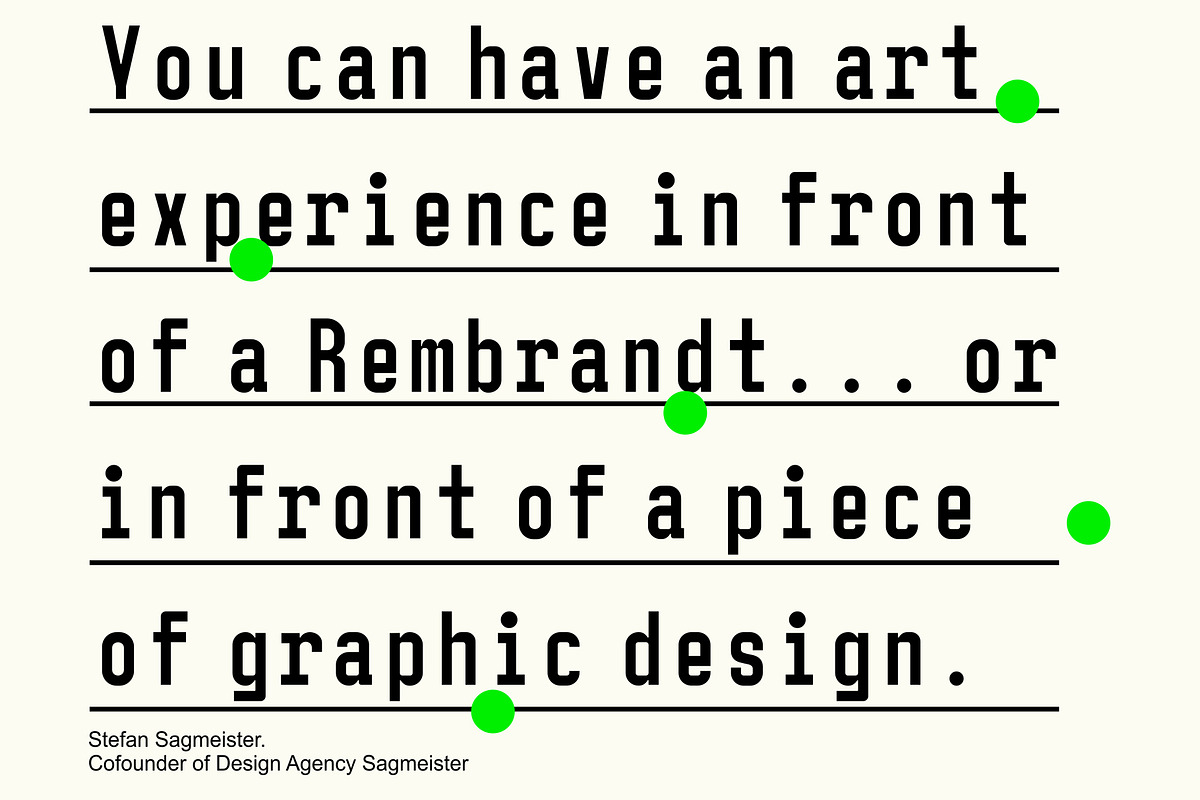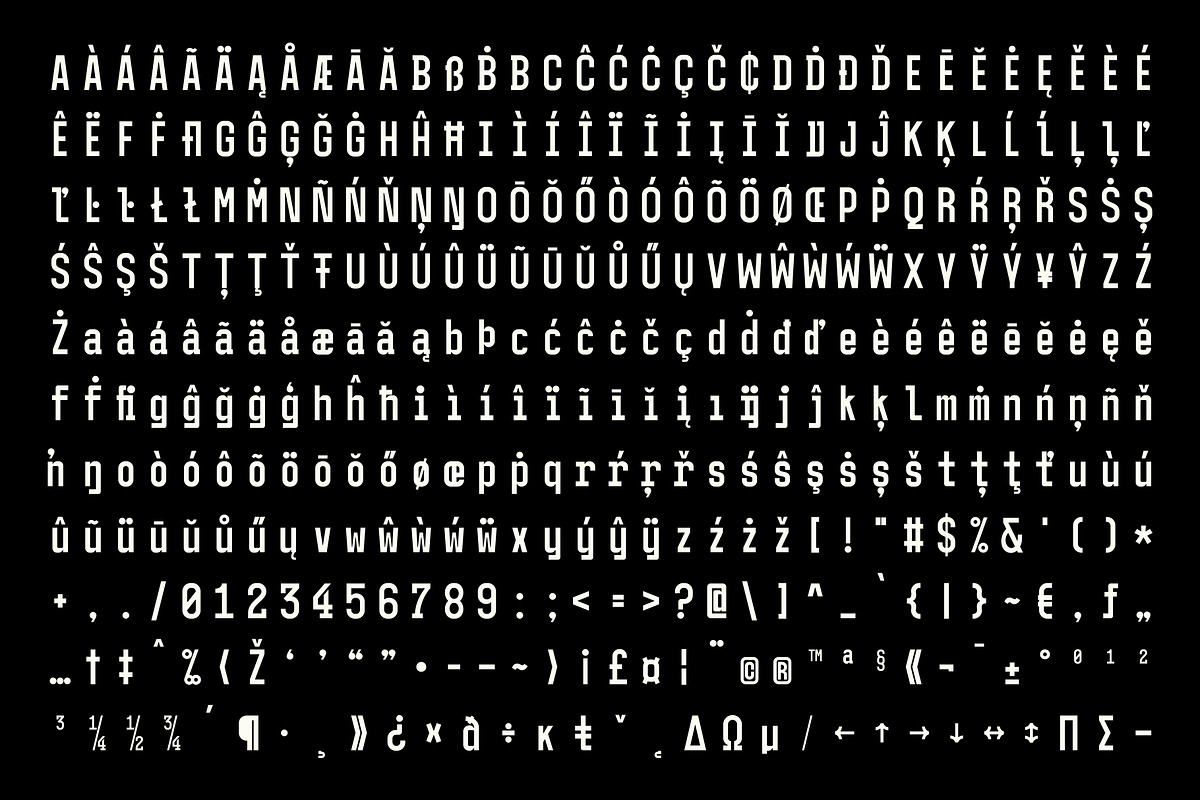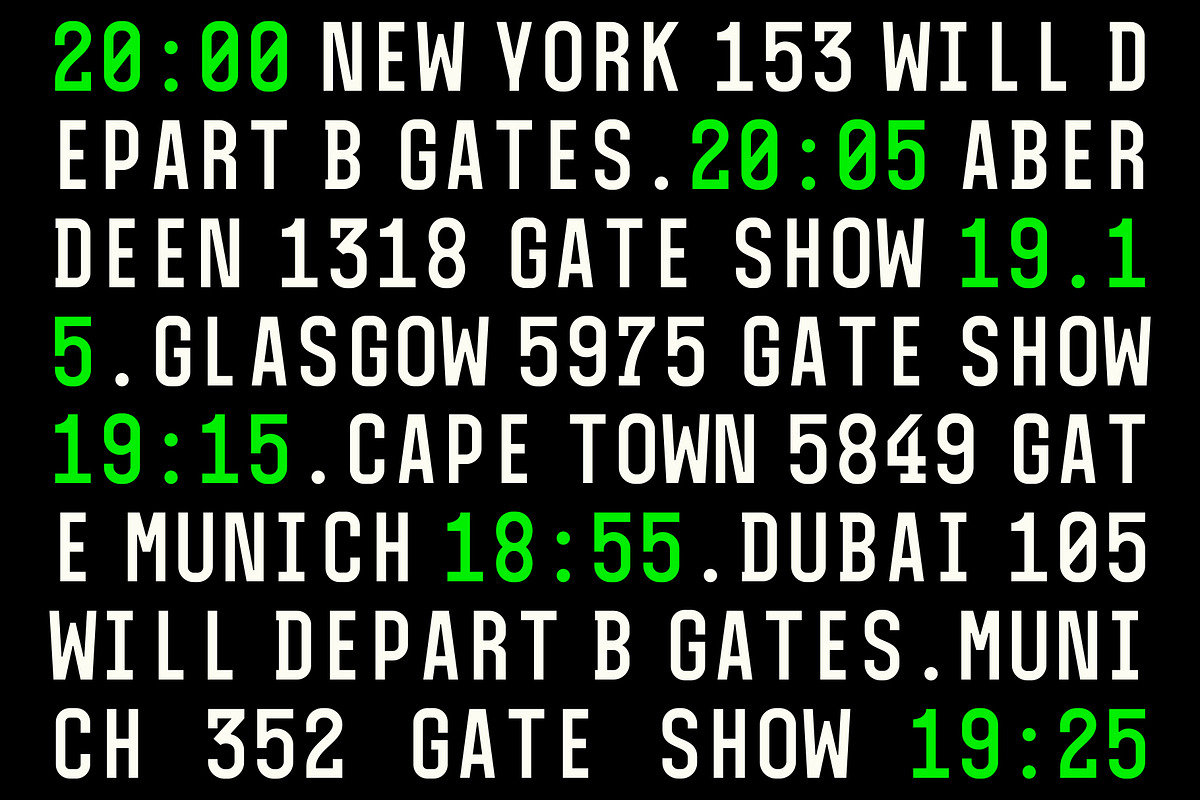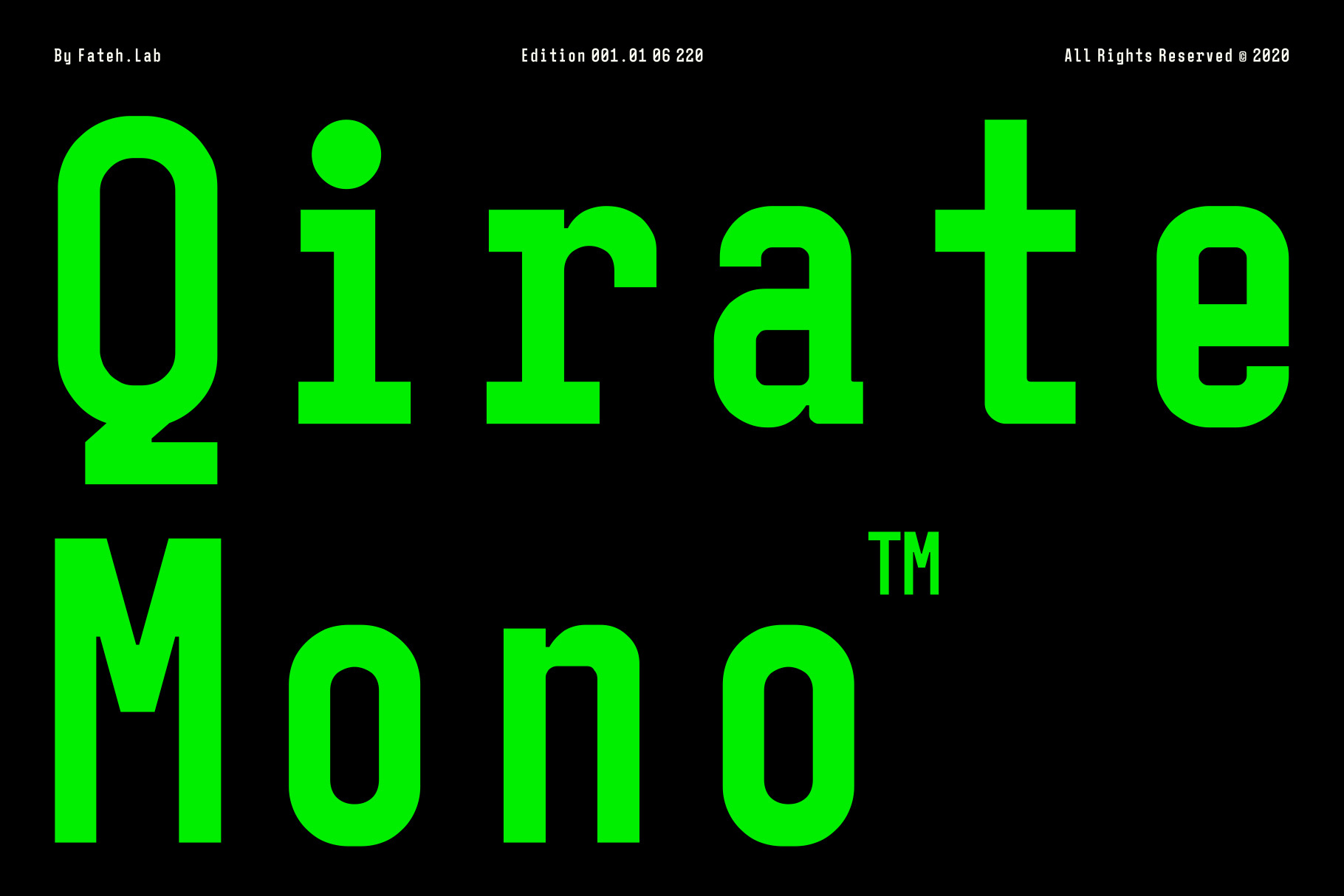
Qirate Mono | A Monospaced Font
Qirate Mono is a type of monospace font released by Fateh.Lab in 2020. This is good news for you graphic designers around the world. This font combines strong modern and minimalist style, perfect for those of you who have a young passion in designing ideas. Qirate Mono is full of unique characteristics. This font is available in single weight and style. have now too